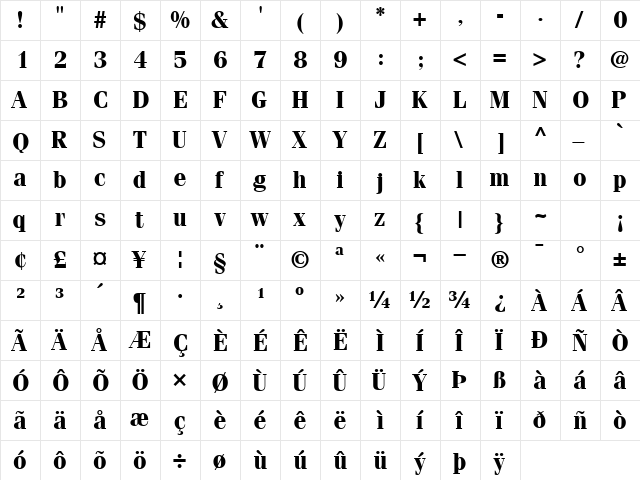
CompendiumSSK Bold Font Preview
CompendiumSSK Bold
Design Context for CompendiumSSK Typeface
CompendiumSSK takes a measured approach to typography — its balanced proportions and neutral character make it a reliable workhorse for both digital and print work. Its bold stroke weight gives it real presence on the page.